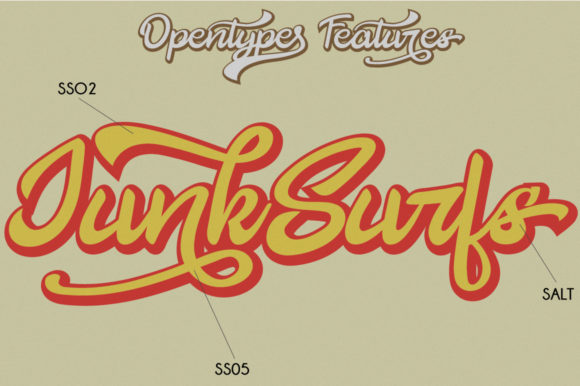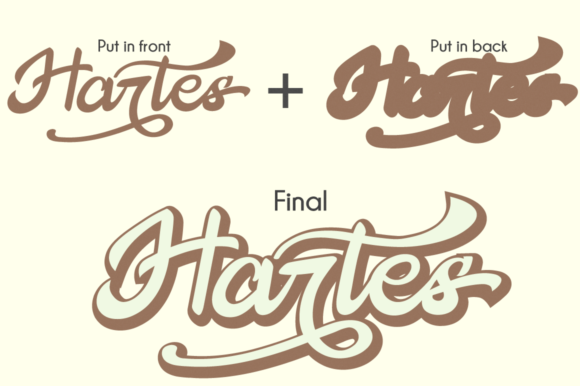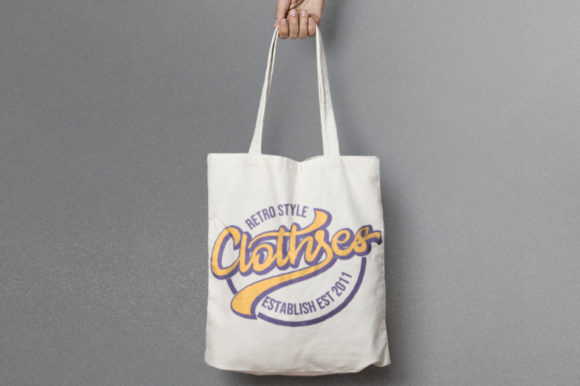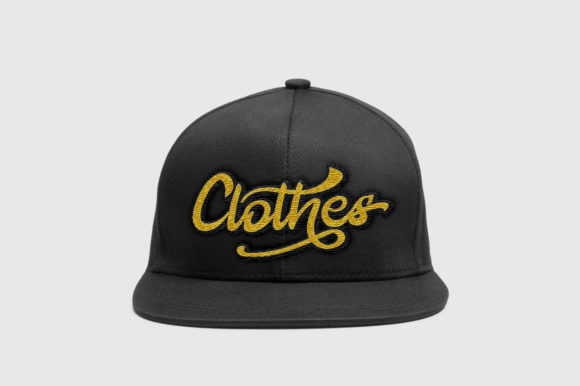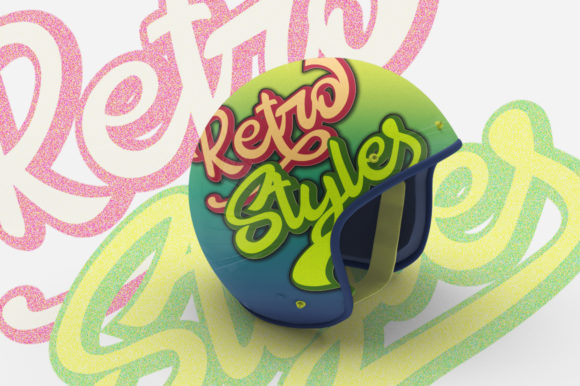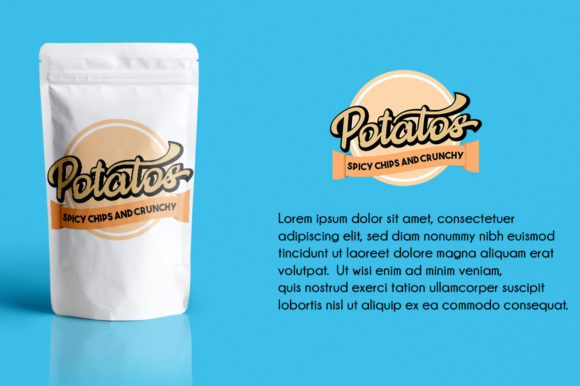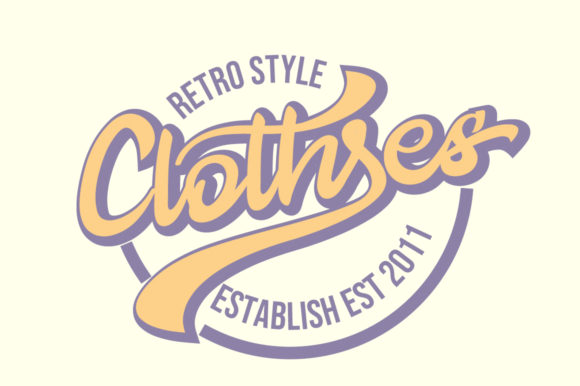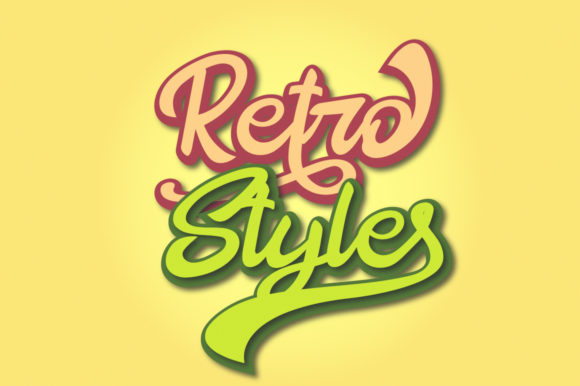
The Hartes Font
About The Hartes Font
The Hartes is a fun, vintage handwritten font with a bold feel. Funky and dynamic, it will inspire any retro design project!